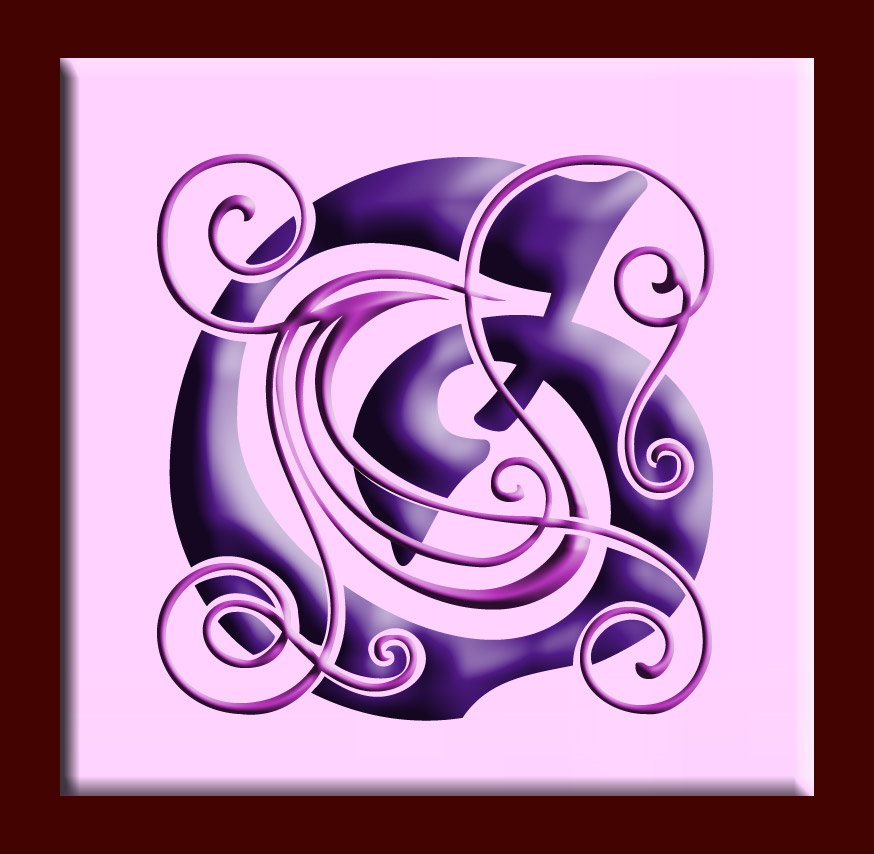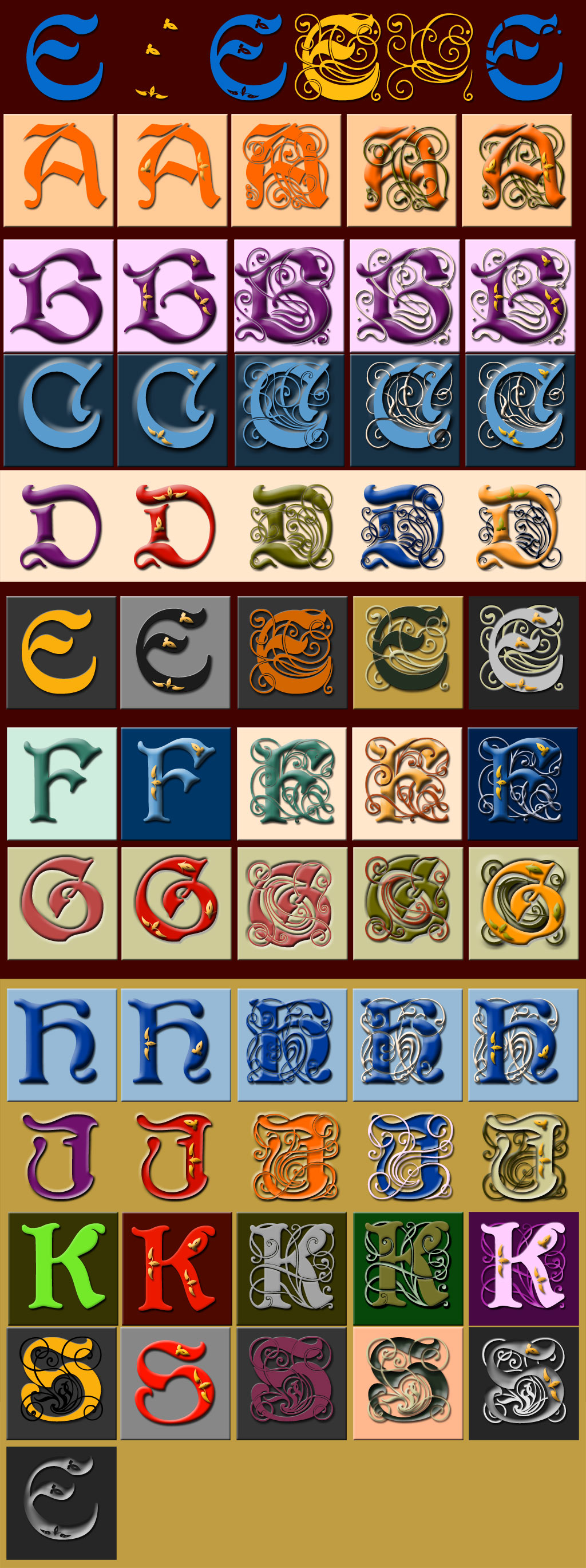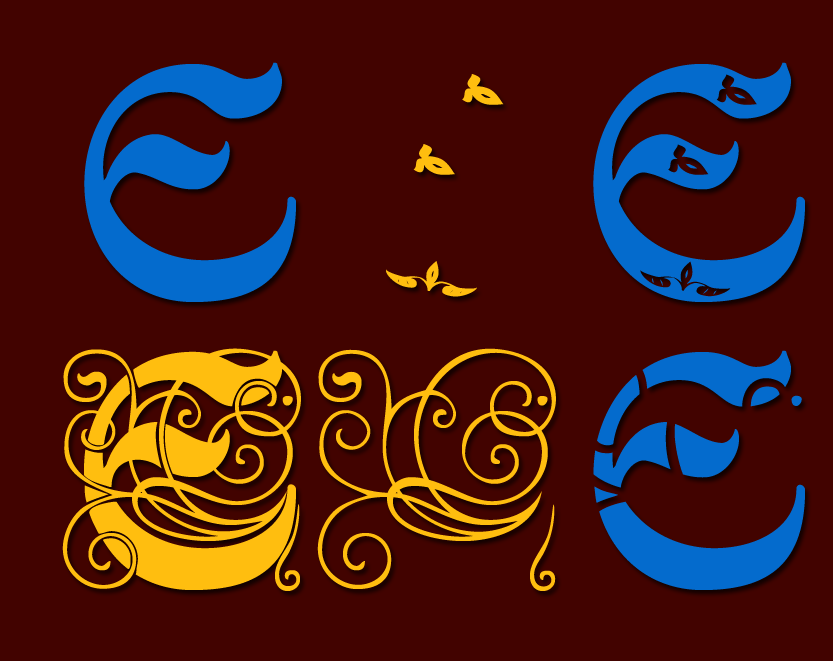
There's a long tradition of filling letters with leafy ornaments, from the Middle Ages on. The question is how do you get the living, multi-coloured, 3D effect which the old manuscripts have, with a single-colour 2D computer font?! Here's one solution, inspired by a modernised version of some renaissance capitals: three family members, using the upper and lower case spaces for diferent versions, giving six variants.
This font family isn't finished yet — with such complicated contours weaving in and out of one another and different versions, it's a pretty slow job — but about the half the characters are done: do try them out and give me some encouragement to finish it all off ;-)
- three fonts - six elements to combine in various ways |